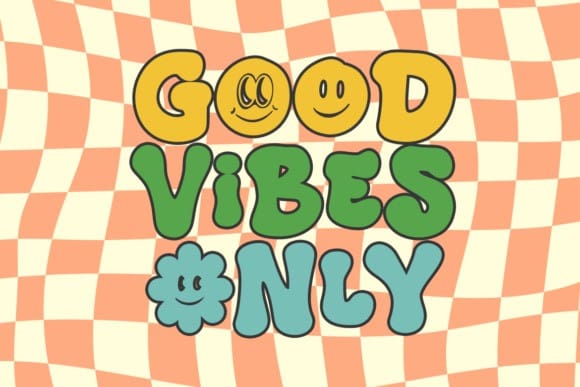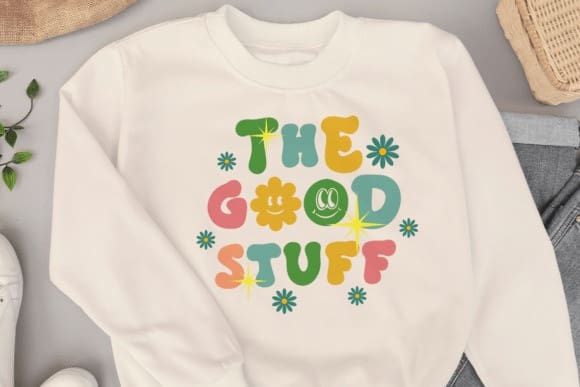
Masa Groovy Font
Masa Groovy Font is a stylish and playful display font. Use this display font to add that special retro touch to any design idea you can think of! Masterfully designed to become a true favorite, this font has the potential to bring each of your creative ideas to the highest level!